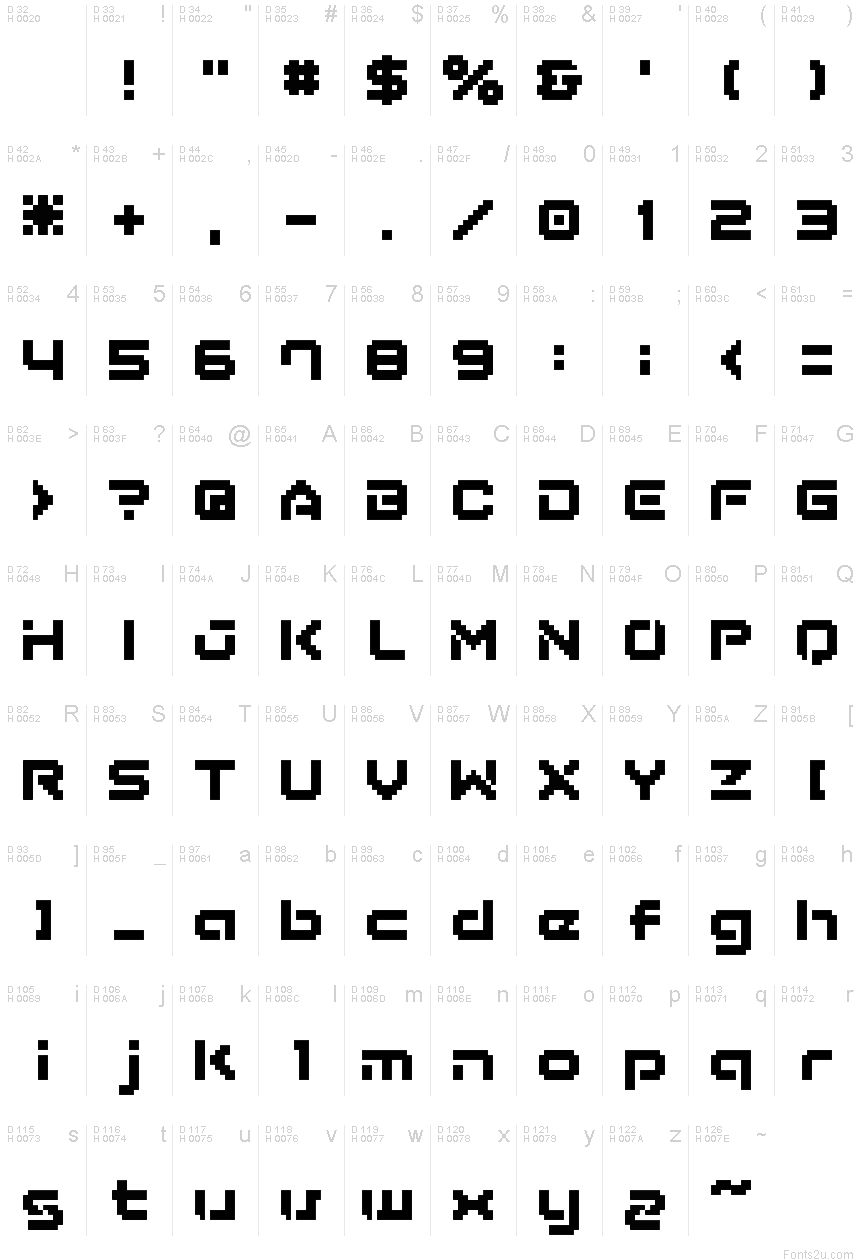
BM army A12
BM army A12 font by BitmapMania / COOZ is a free pixelated bitmap font from the BM army family. Its chunky, squared letters and clipped inner gaps give it a tough screen-grid snap, like text lifted from an old tactical monitor or handheld game menu; even at a glance, it feels crisp, compact, and slightly mechanical.
Using BM army A12 works beautifully for retro game titles, HUD graphics, arcade flyers, stream overlays, sticker packs, tech zines, and app splash screens. This free font stays sharp in short words and labels, and it pairs easily with a plain sans like Inter to let the pixel texture do the talking.